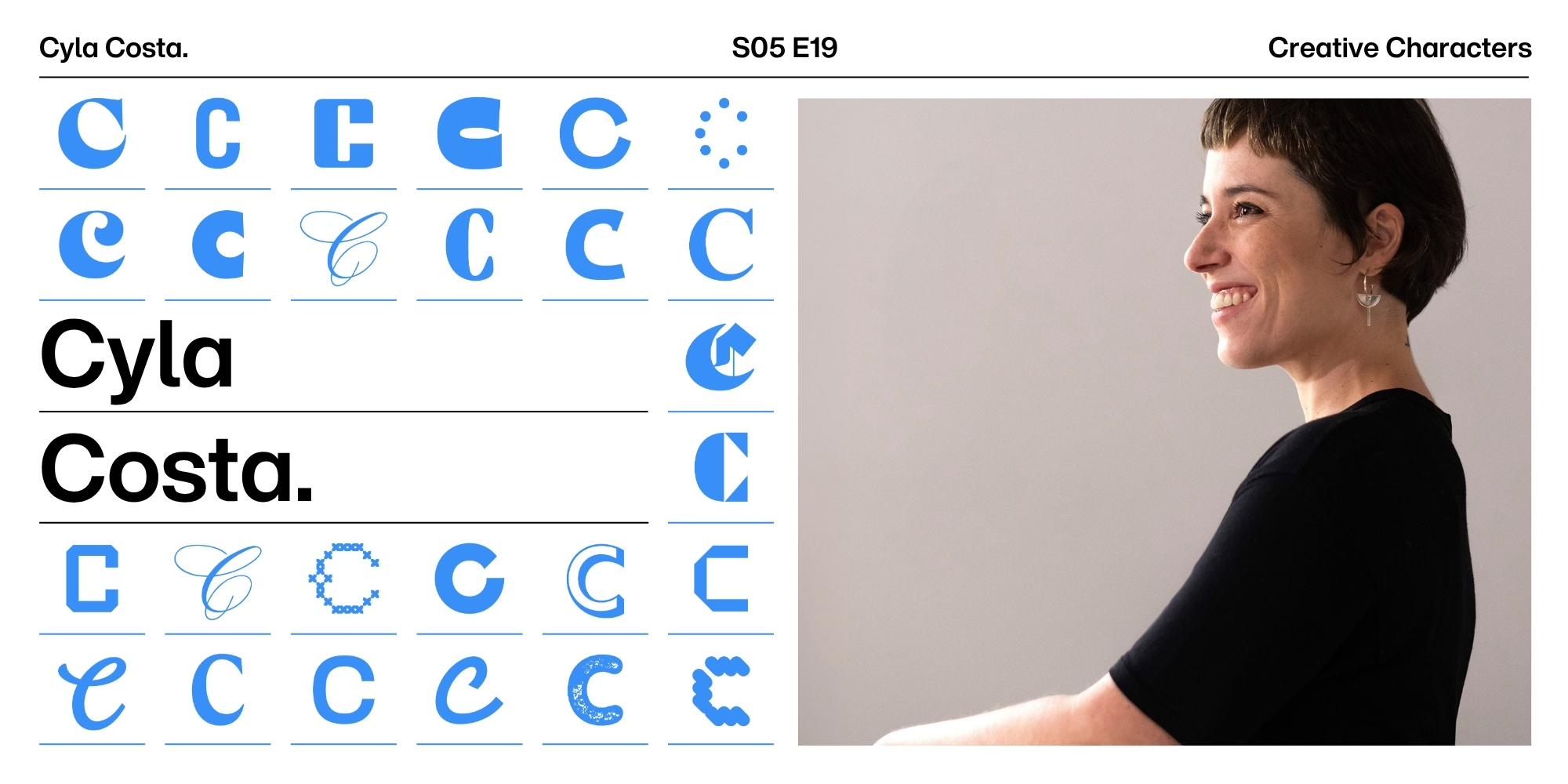
Creative Characters S5 E19: Balancing expressiveness and readability with Cyla Costa.
Cyla Costa.
Cyla Costa’s work feels alive. Hailing from Curitiba, Brazil, she’s an award-winning graphic artist and type designer known for expressive lettering and vibrant color palettes. Feminism, strength, inclusivity, and culture are a few of the themes her work explores.
This week, Cyla chats with host Molly Doane about building a creative career and studio in Brazil, her approach to type design, and why letters are not only meant to be read.